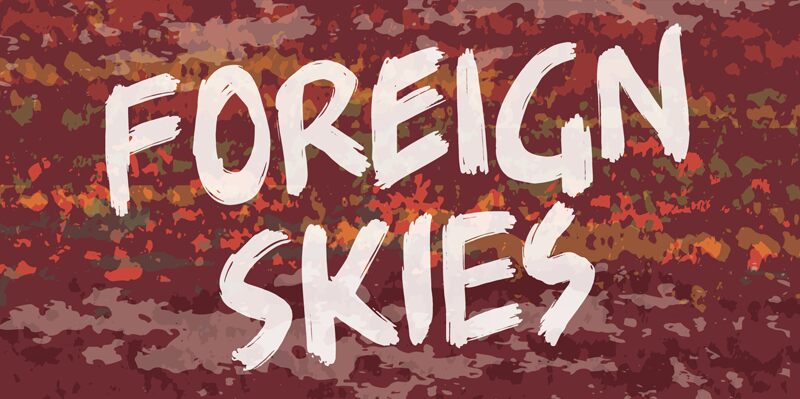
Foreign Skies DEMO Regular
Foreign Skies, a mesmerizing brush font by Pizzadude, adds a touch of creative flair to any project.
With its semi-bold weight and unique brush style, this font is perfect for adding personality to logo designs and branding projects. Its organic strokes and flowing lines make it suitable for both digital and print designs alike. Whether you're working on a fashion label, travel blog, or artisanal food packaging, Foreign Skies will transport your audience to far-off lands with its captivating charm.
Let your imagination take flight with this enchanting typeface!